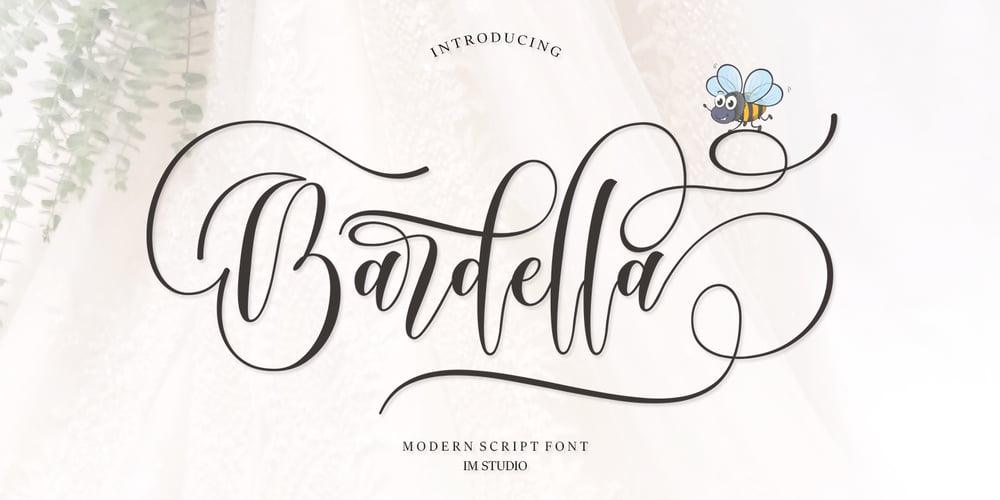
Bardella Font Family was designed by Ikhsan Maulana and published by IM Studio. Bardella contains 1 styles and family package options. Bardella is designed in a natural handwriting style, and has a modern and unique writing form. It includes Alternative Styles and Contextual Alternatives.Bardella be used for various purposes such as posts, logos, wedding invitations, t-shirts, letterheads, signage, labels, news, posters, badges, etc. To enable OpenType style changes, you need a program that supports OpenType features such as Adobe Illustrator CS, Adobe Indesign & CorelDraw X6-X7.